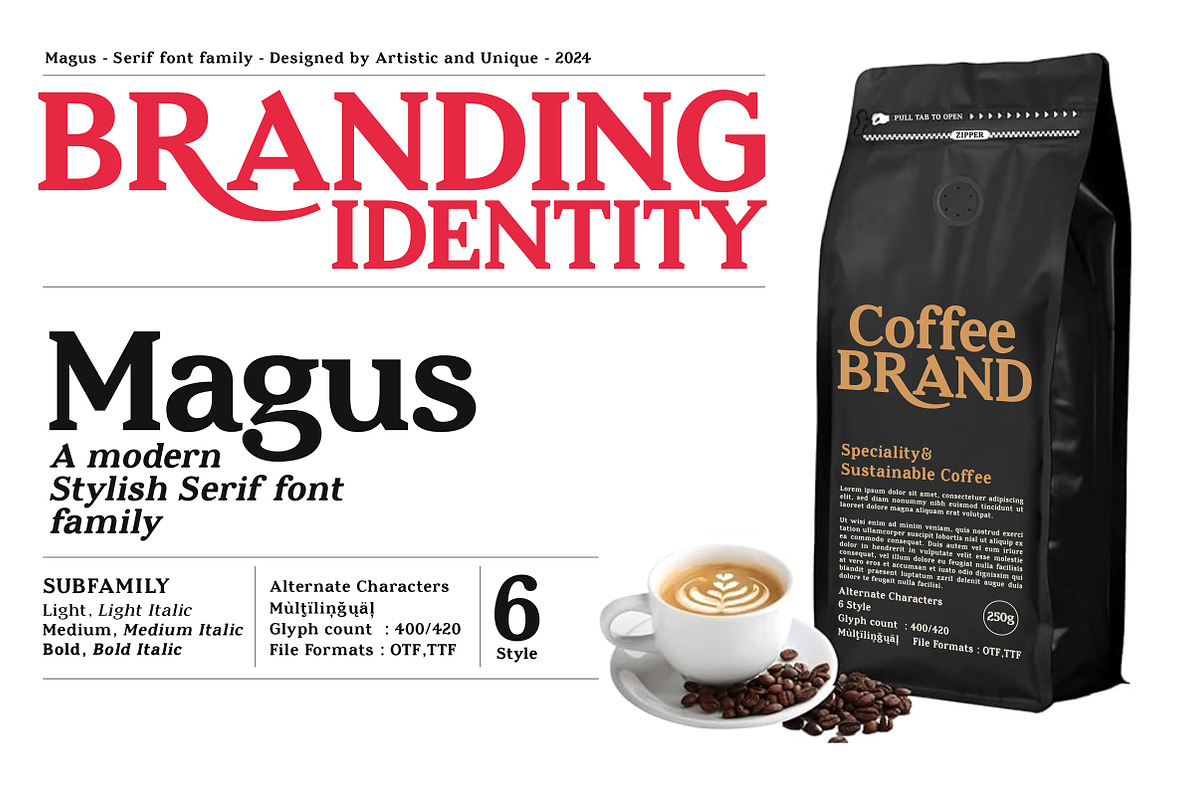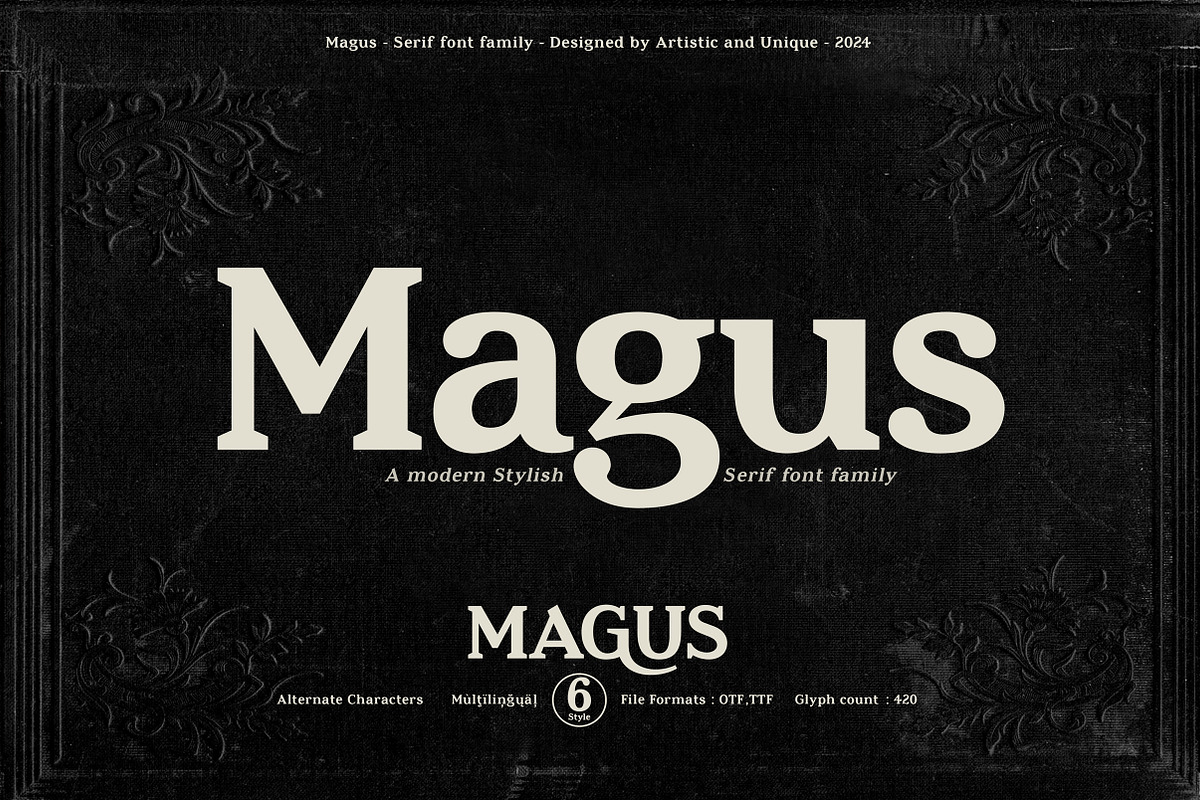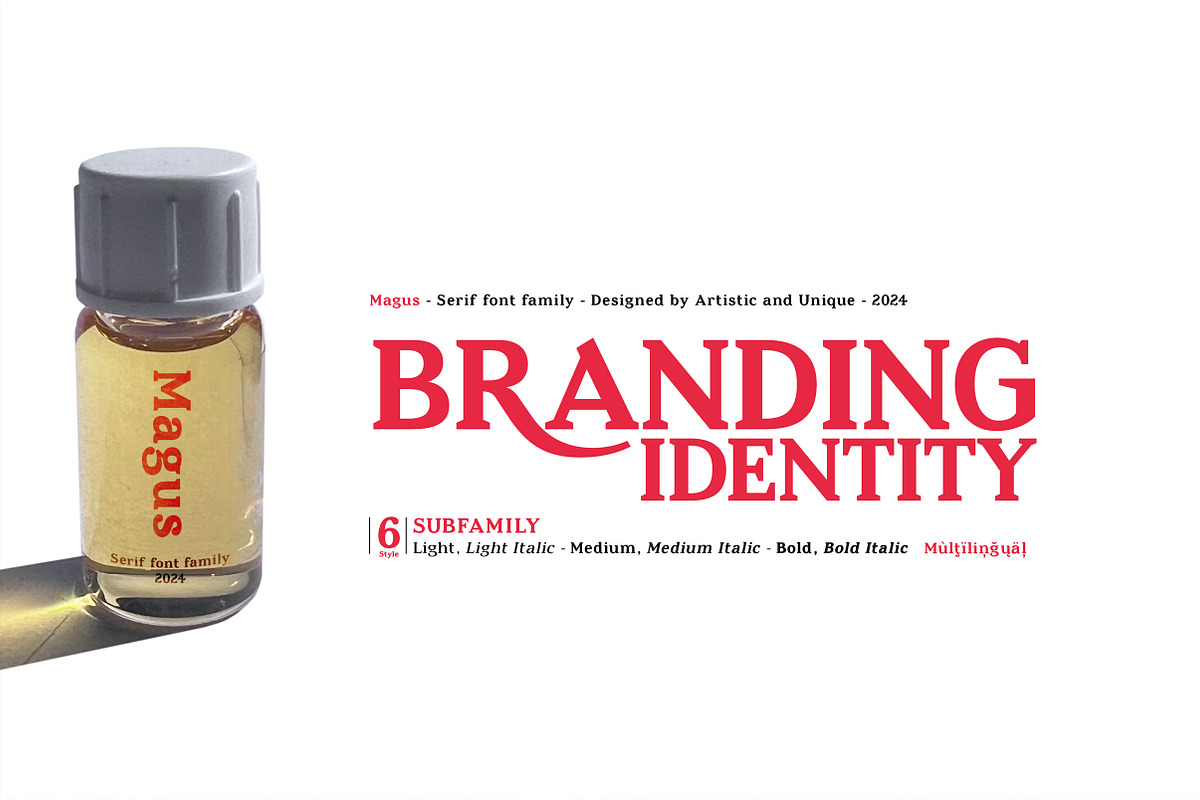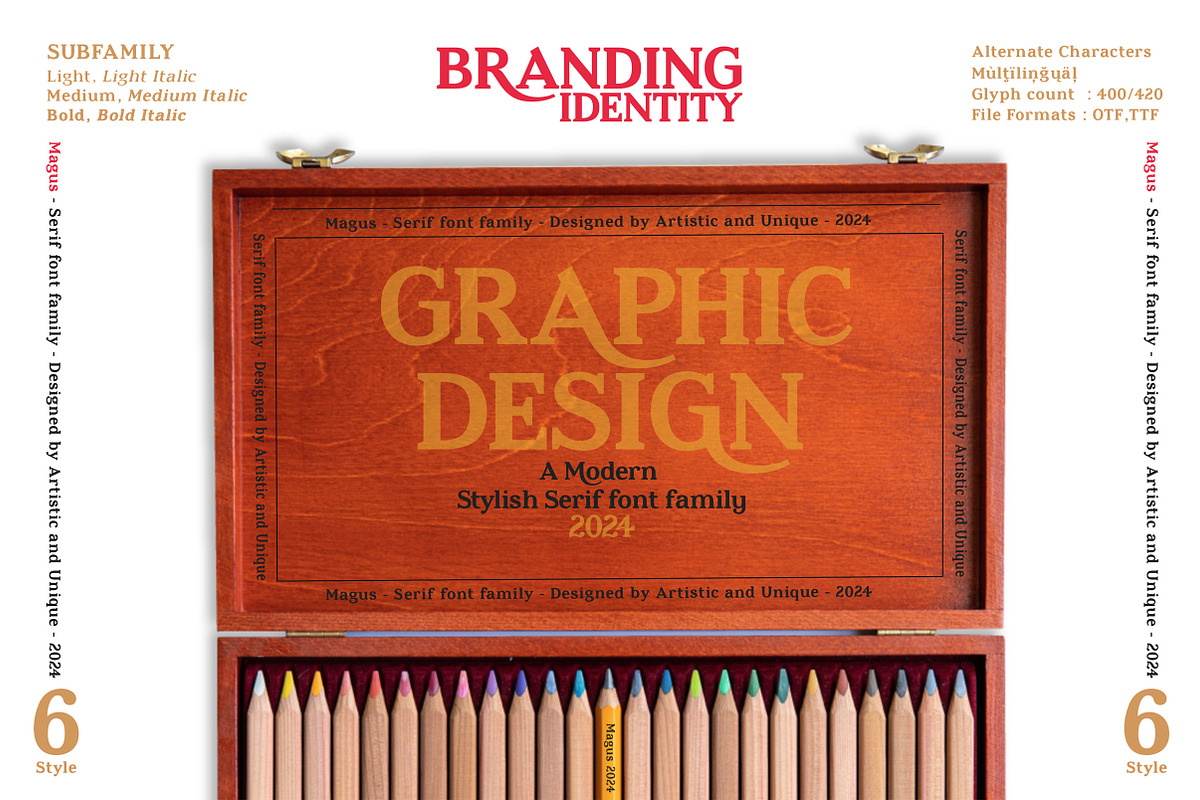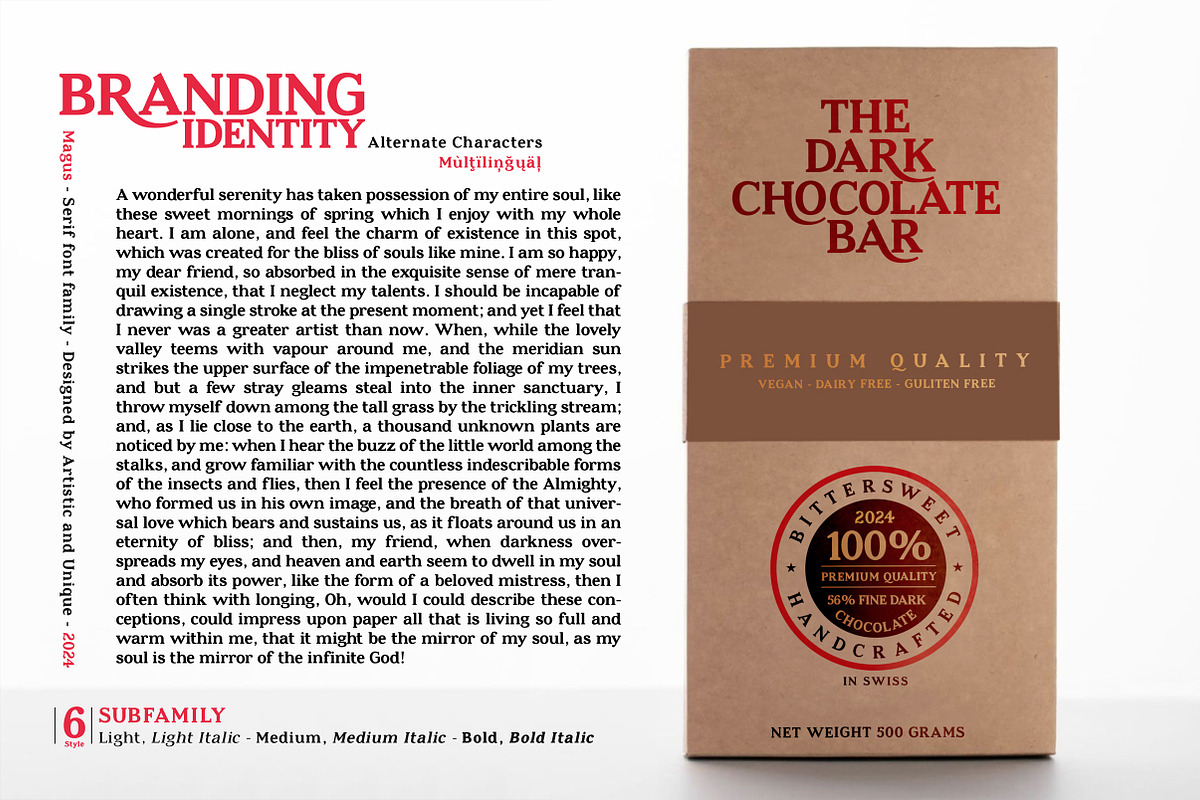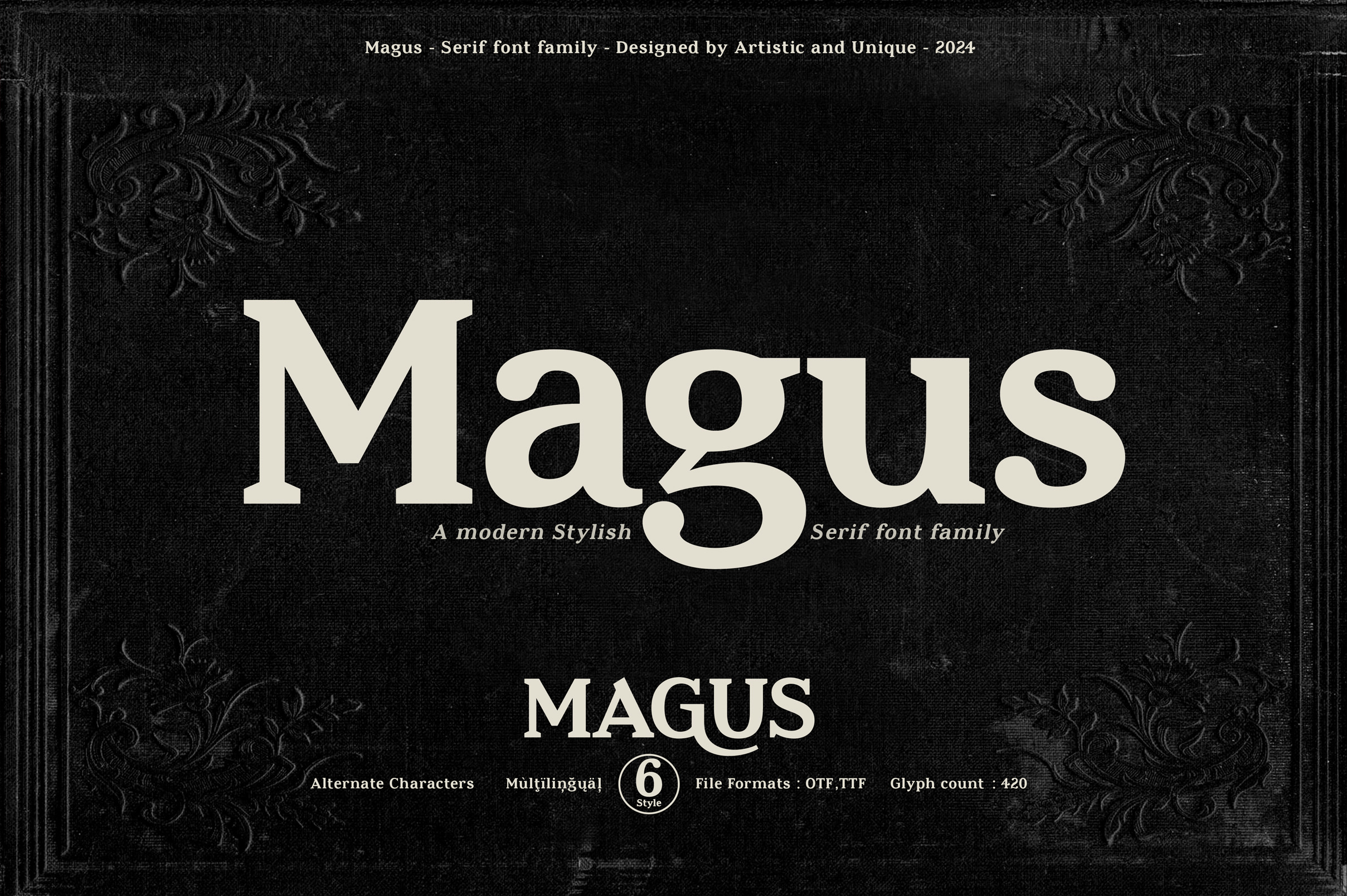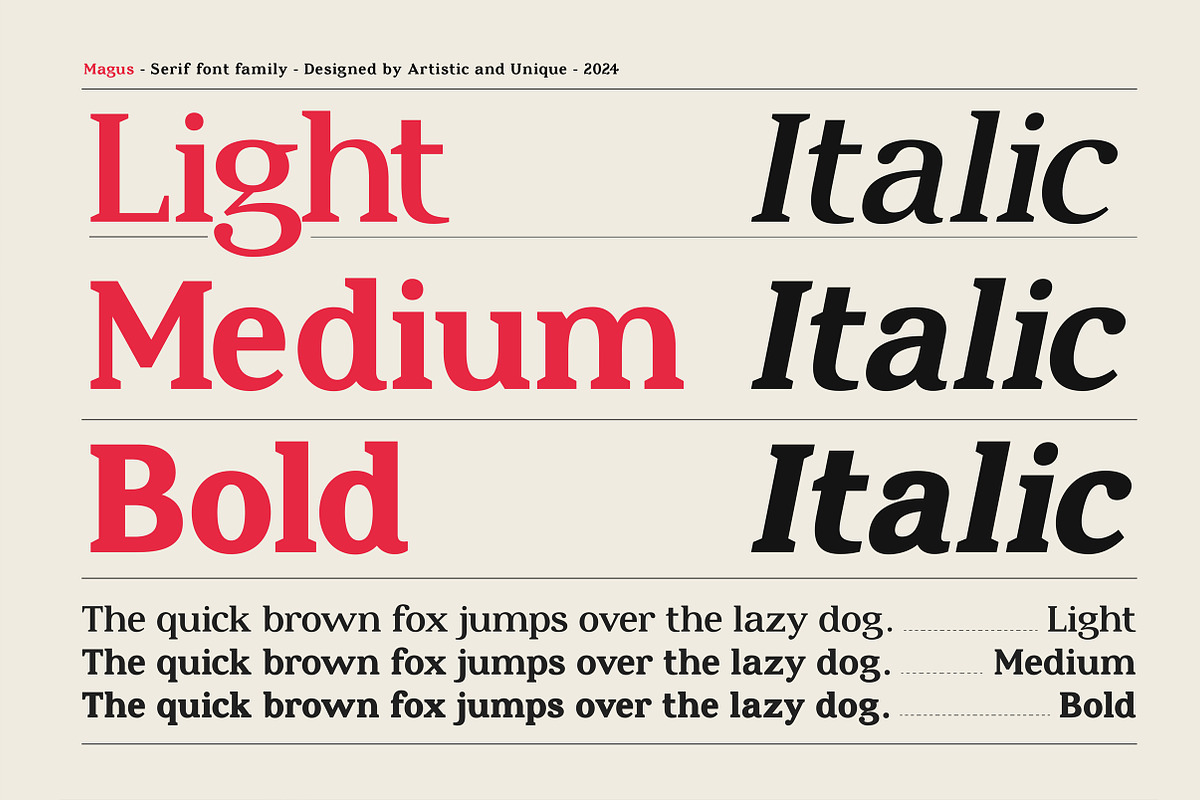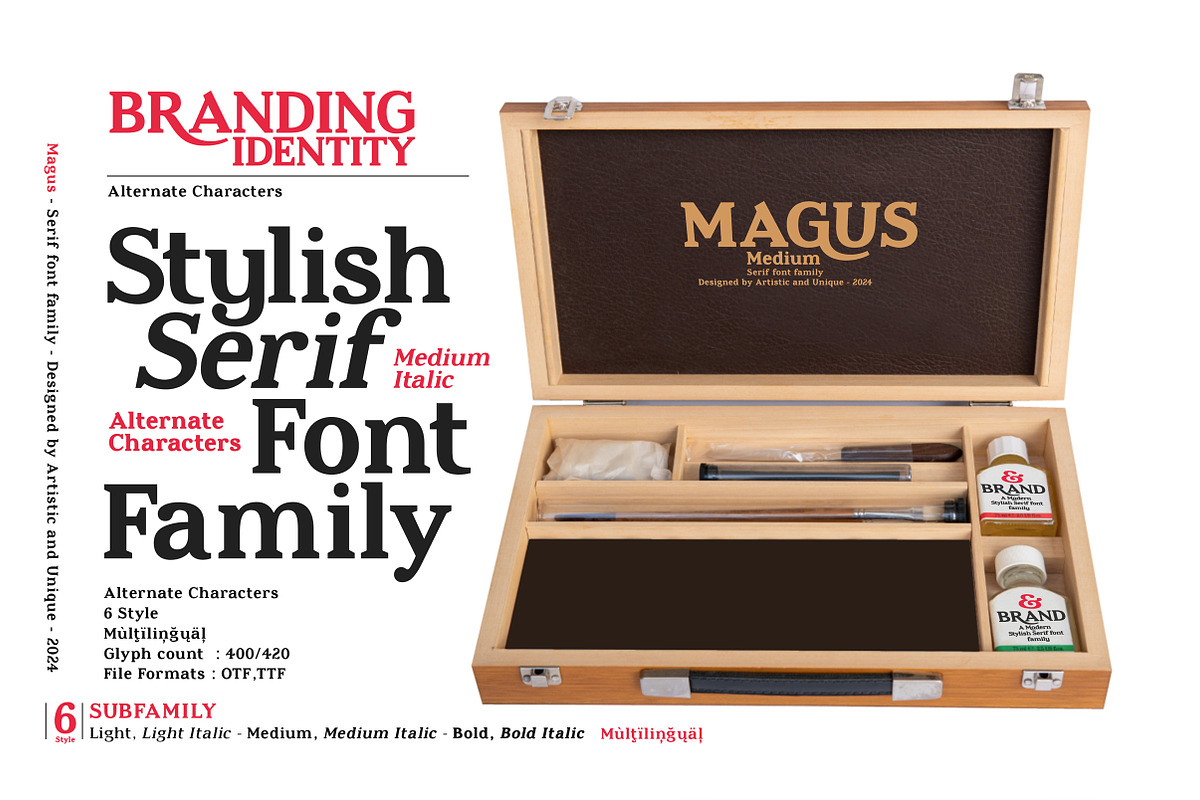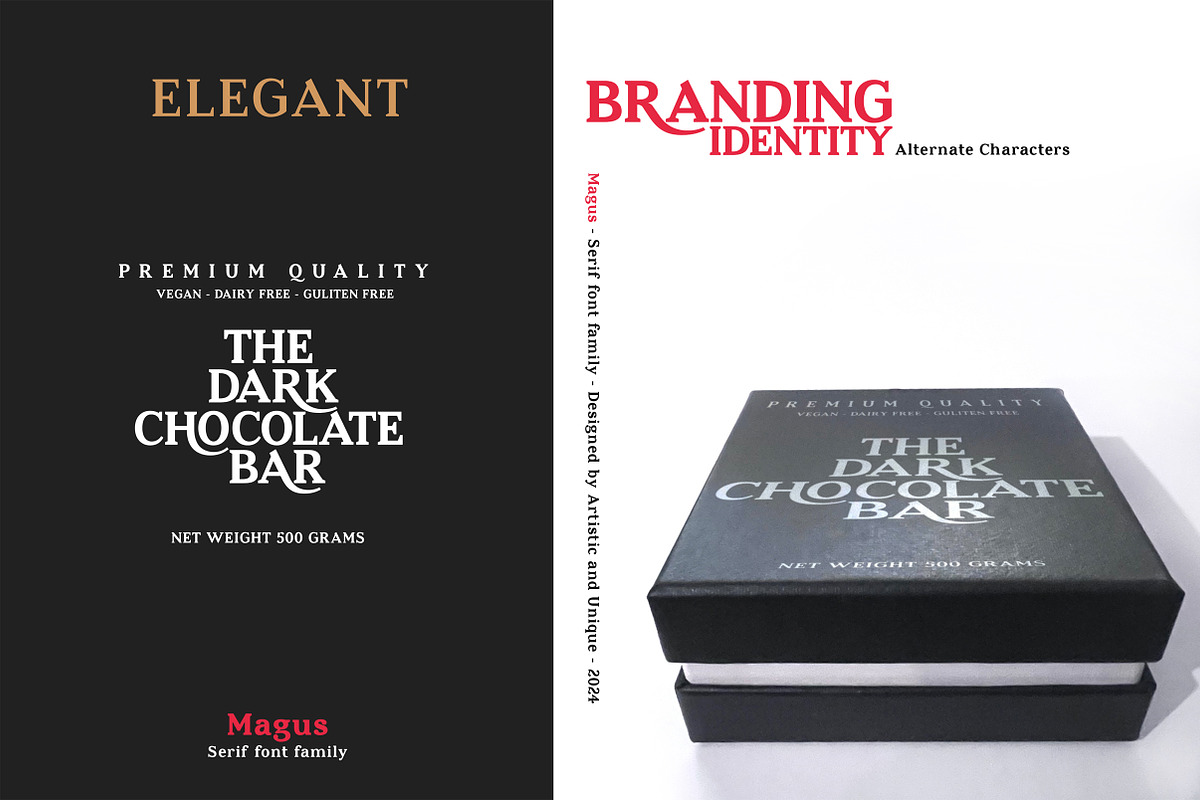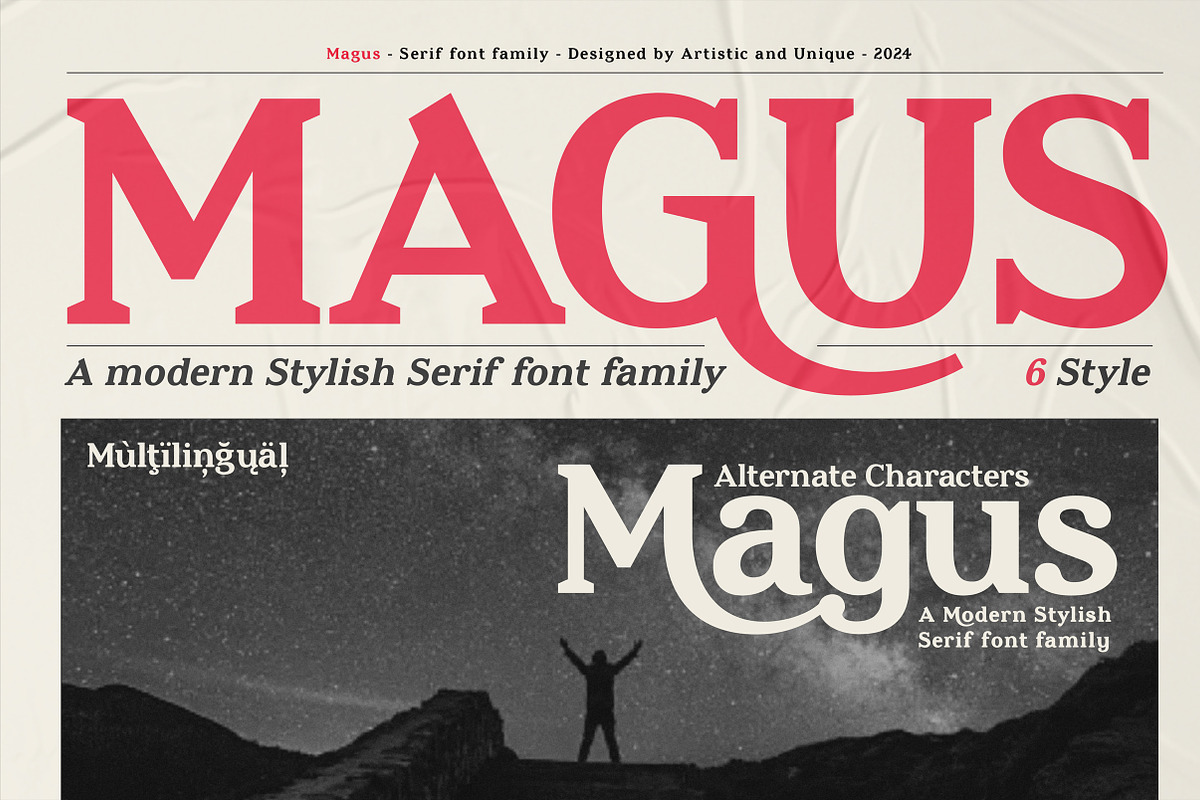
Magus - Serif font family
Magus - Serif font family - 6 Styles - Multilingual supports.
Magus is a stylistic and powerful serif font family with different alternative character designs.You will have the opportunity to enrich the content of your projects with alternative characters.This font comes with Multilingual options, 6 styles and rich glyph options. It has a stylist structure that can be effective in the development of your projects.
While you can easily use standard characters in plain texts, you can also create aesthetic styles with alternative characters. According to the purpose of use in the typographic compositions you will create; you can also create stylish looks for your titles in books or magazines in creating a brand identity. This font provides flexibility in all your projects with the alternatives it offers.
Especially for editorials, magazines, books, branding, identity, packaging, logo design, web design, headlines, movie titles etc.
If you're looking for a font with stylistic alternatives, Magus serif font might meet your needs.
With this font you can create your unique designs.